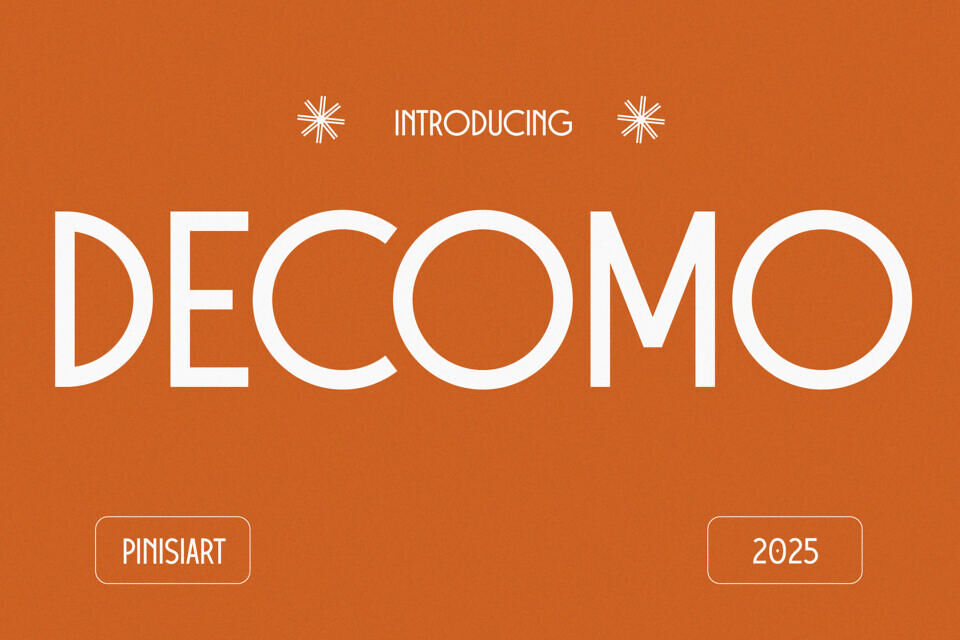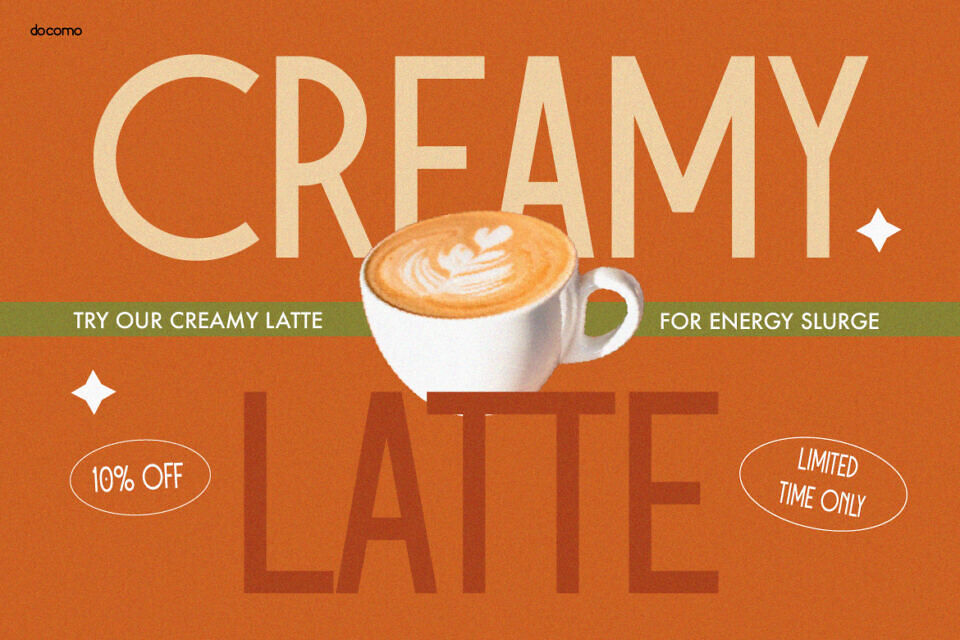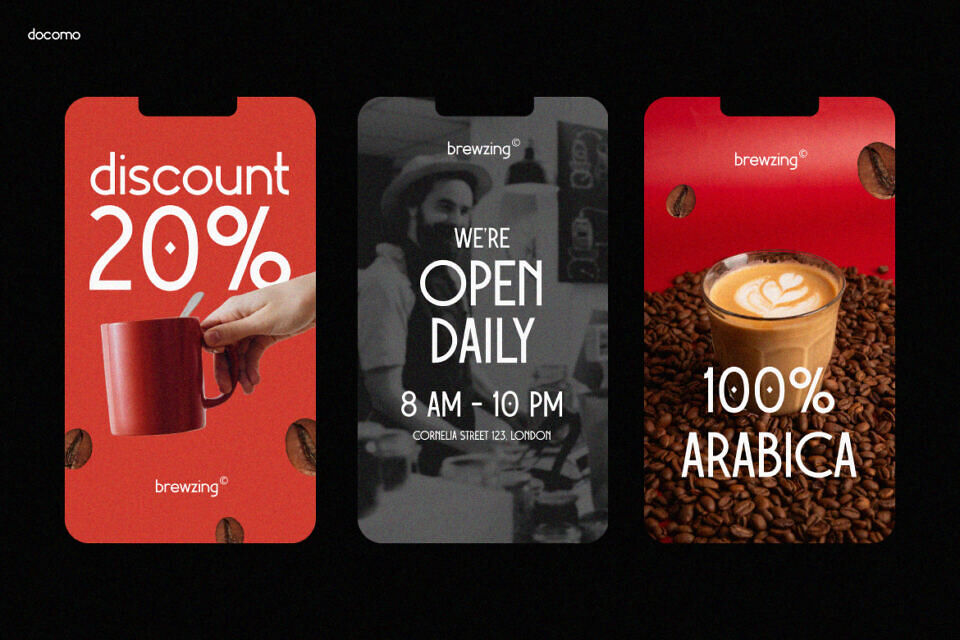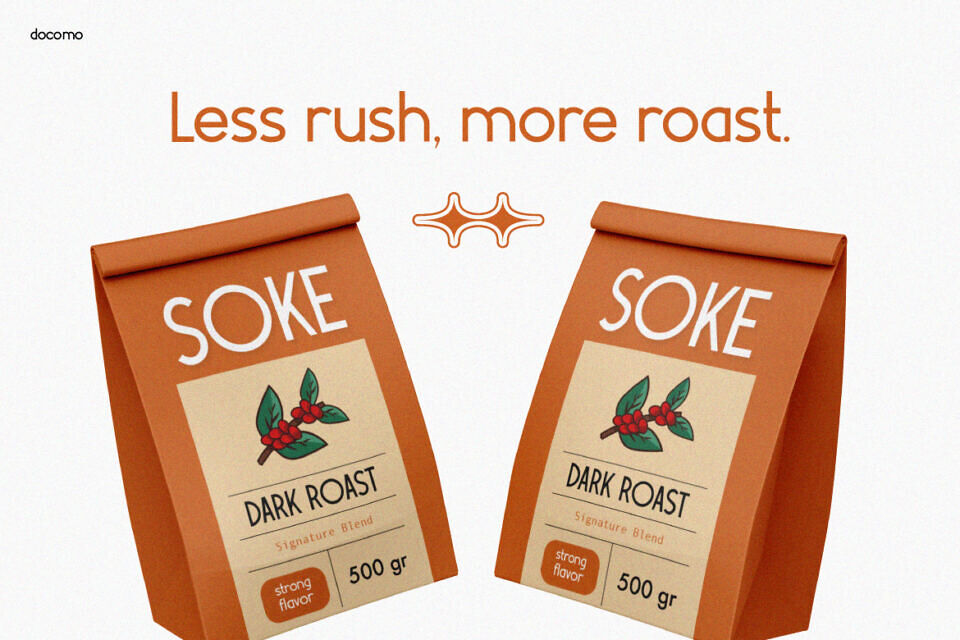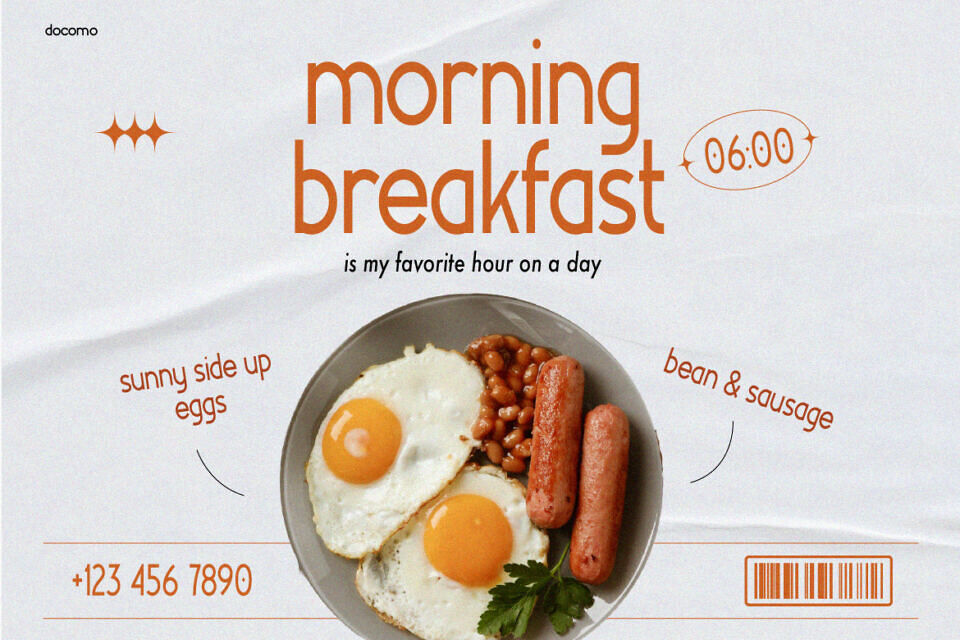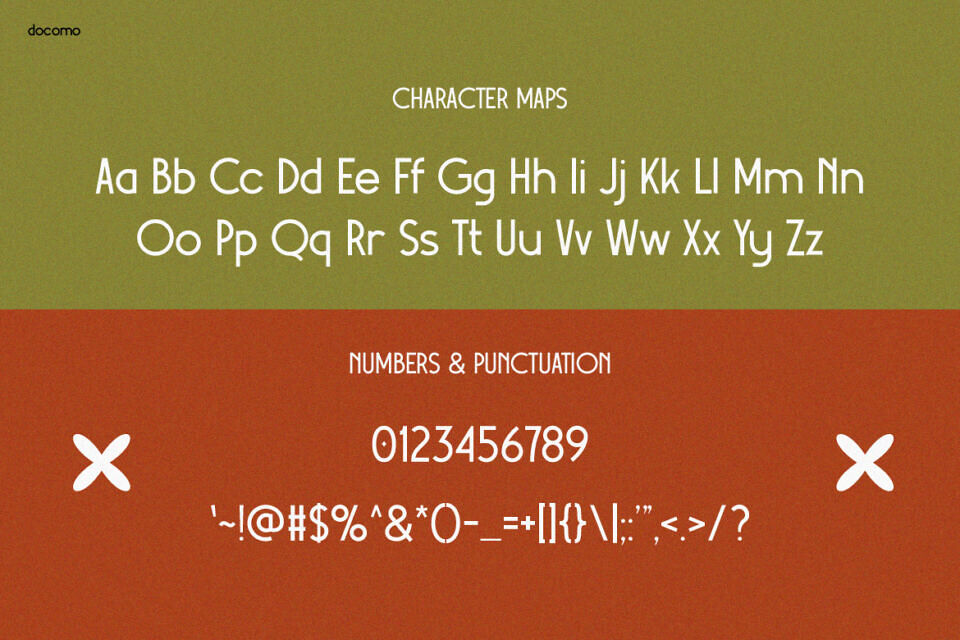
DECOMO is more than a typeface — it’s a timeless visual experience. This font captures the charm of retro design yet keeps a modern feel. Its rounded edges, bold strokes, and smooth balance make every word feel alive. Each curve adds warmth, and each line delivers clarity. As a result, your design looks classic yet fresh at the same time.
Retro Font DECOMO stands out because of its elegant simplicity. It blends the coziness of vintage cafés with the precision of modern branding. Whether used for posters, packaging, or headlines, this font always makes your message shine. In addition, its legible shapes make it work perfectly in both large titles and smaller details.